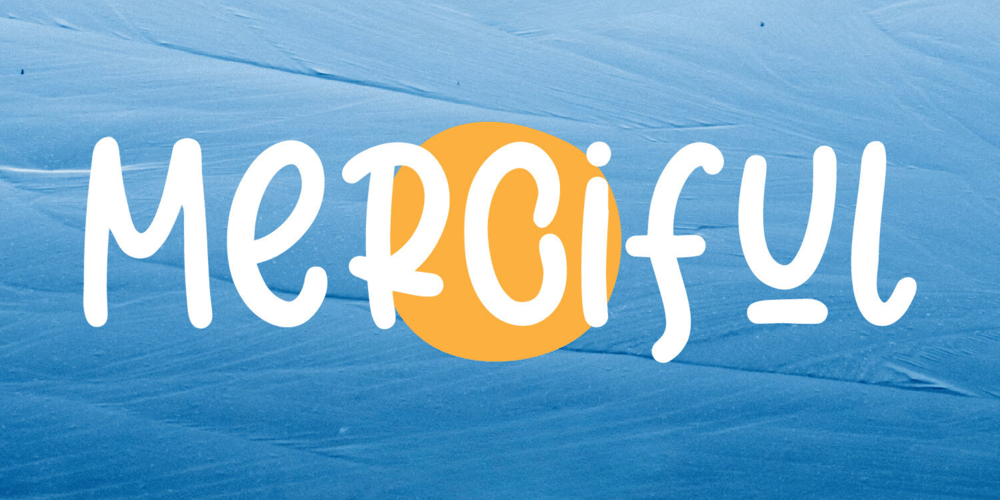
Merciful
Merciful font
Merciful Font Family was designed by Irpan Maulana and published by Create Big Supply. Merciful contains 1 styles and family package options. Introducing Merciful, a charming and playful sans serif font that brings a touch of fun and uniqueness to your designs. With its cute and lively style, Merciful adds a playful and vibrant element to any project. Whether you’re designing greeting cards, children’s books, party invitations, or any other creative work, Merciful is sure to capture attention and spread joy.This font features both uppercase and lowercase letters, making it versatile for various design purposes. It also includes numbers and punctuations, allowing you to create engaging typography and eye-catching headlines. Merciful supports multilingual characters, enabling you to express your creativity in different languages.With the added convenience of PUA encoding, accessing all the font’s glyphs and swashes is effortless. You can unlock a world of creative possibilities by exploring the various ligatures and alternate characters available in Merciful.